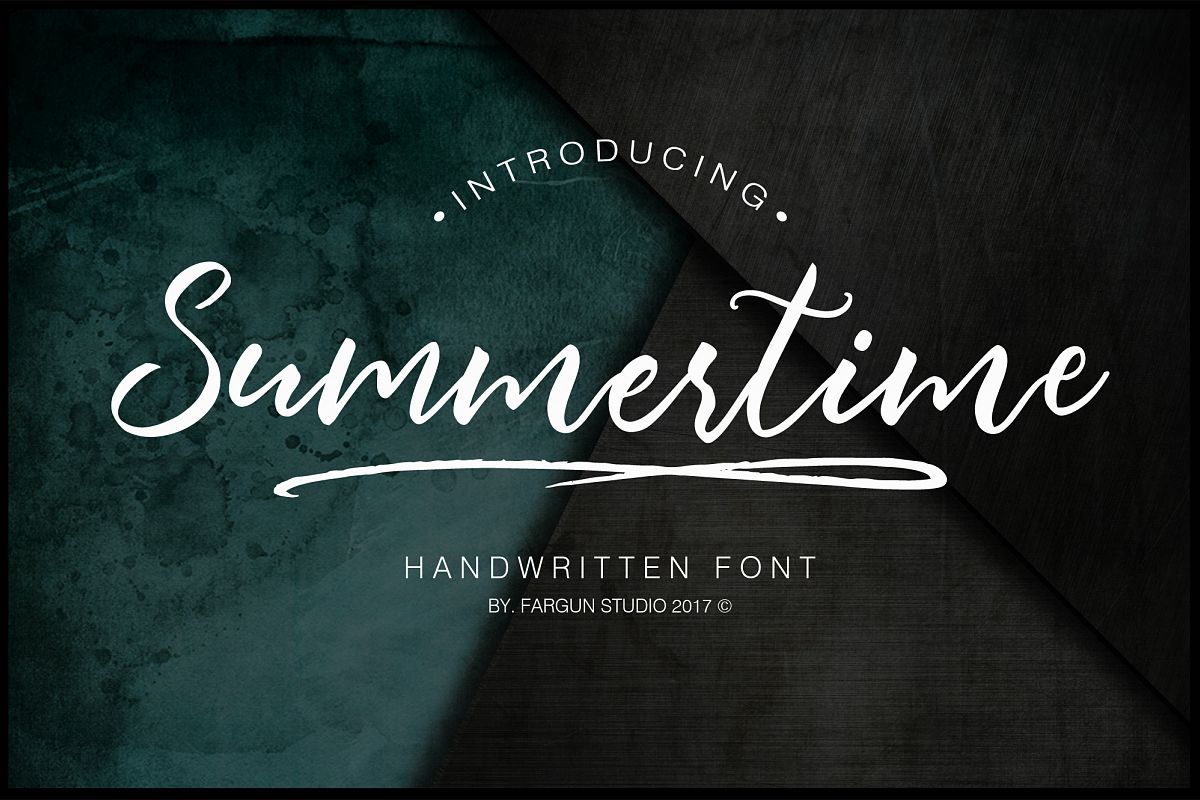
Summertime Script
It's Summertime!!
Handwritten font with a signature style. Perfect for branding
projects, homeware designs, product packaging or simply as a stylish
text overlay to any background image.
Alternates !
Summertime has an entire alternate lowercase glyph set. This is